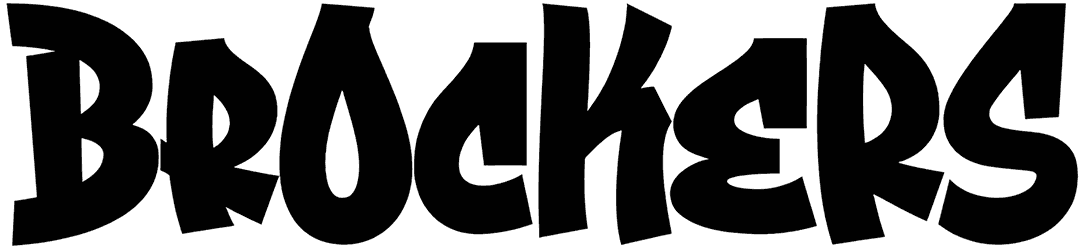
Brockers Font
In the design world, some fonts, such as Brockers, are not easily applicable and require a lot of time. It is recommended that you download this graffiti font to be able to quickly carry out street projects such as drawing on street clothes, nightclubs, and even video games. Remember that it does not support lowercase letters.
Designed by: Blankids